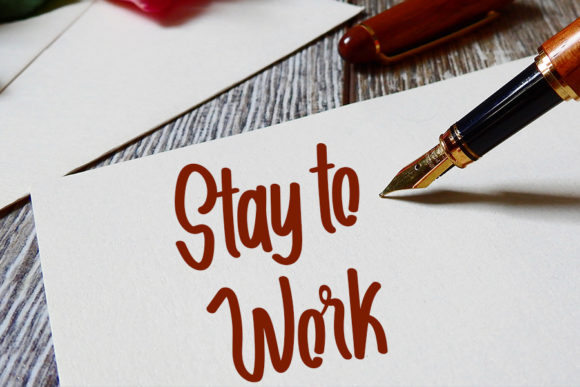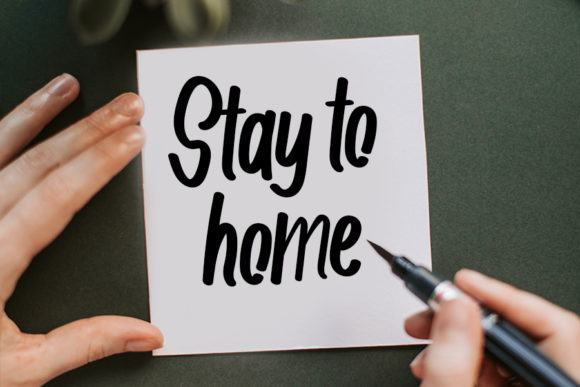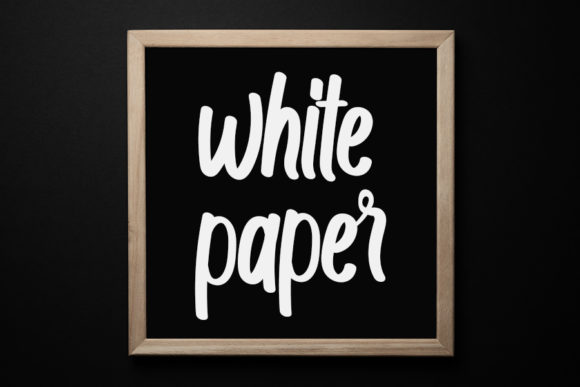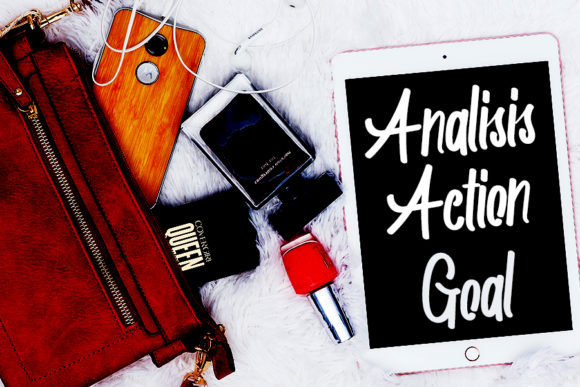
Introduction to Smart Business Font
As a designer, you’ve probably found yourself stuck in front of a blank canvas, staring at a sea of fonts, searching for the perfect one to bring your creative project to life. And then, it hits you – that perfect combination of style and elegance that makes your design stand out. For me, that moment came when I discovered the Smart Business Font. This sweet and flowing handwritten font has been a game-changer for my designs, and I’m excited to share its benefits with you.
Whether you’re creating branding, product packaging, or invitations, the Smart Business Font is a valuable addition to your design resource arsenal. With its high-quality design and transparent background, it’s perfect for a variety of projects. And the best part? It’s available for free download, making it an accessible resource for designers of all levels.
Key Features of Smart Business Font
- Designed with a modern and professional aesthetic, making it perfect for a wide range of business applications.
- Includes multiple font styles, including bold, italic, and regular, to cater to your specific design needs.
- Perfect for use in business cards, logos, brochures, and other marketing materials that require a professional and sophisticated look.
Honest Review: Smart Business Font
I recently stumbled upon the Smart Business Font, and I must say it’s a fantastic addition to any design resource. As a designer, I’m always on the lookout for high-quality fonts that can elevate my creative projects.
What works well with this font is its versatility. The Smart Business Font comes with a range of weights and styles, making it perfect for both digital and print designs. It’s also available for free download, which is a major plus. I love that the font is designed with a transparent background, allowing for seamless integration with any design.
- ✨ Highly versatile, suitable for various design projects
However, there are a few limitations to consider. The font may not be as bold or eye-catching as some other options, which could be a drawback for designers looking to make a statement.
Overall, I’m impressed with the Smart Business Font. It’s a solid design resource that can add a professional touch to any creative project. While it may not be perfect, it’s definitely worth considering for your next design venture.
The Smart Business Font is ideal for business-related projects, such as:
For the best results, use the Smart Business Font with a transparent background to give your design a clean and modern look. Experiment with different font sizes and styles to add visual interest to your project.